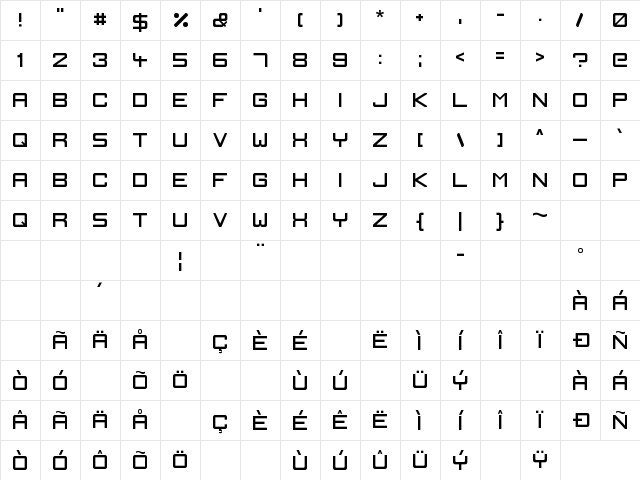
Complete Ignis et Glacies Regular glyph index. Displaying only characters natively supported by Ignis et Glacies Regular font.
Ignis et Glacies is a composed and adaptable typeface that performs quietly and consistently across a wide range of design contexts.